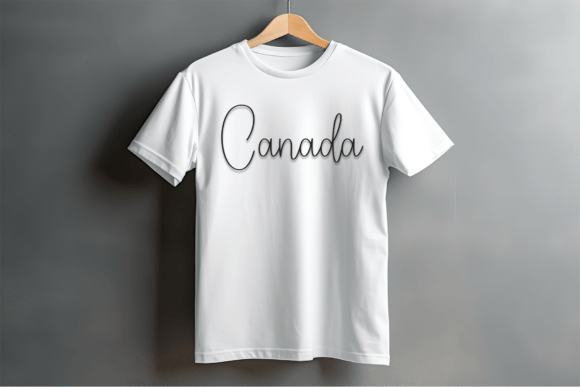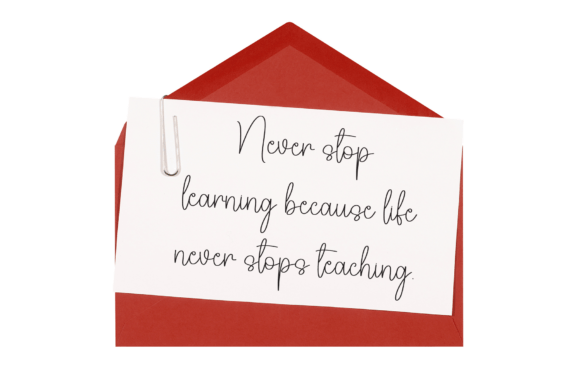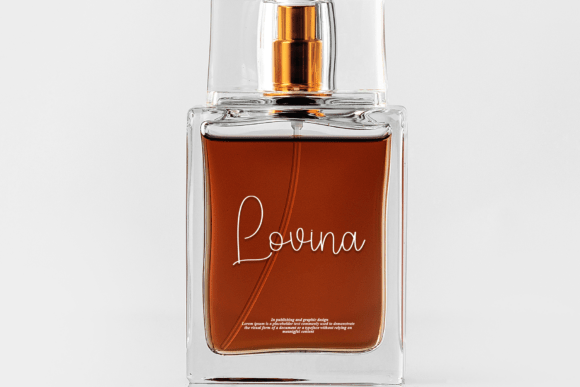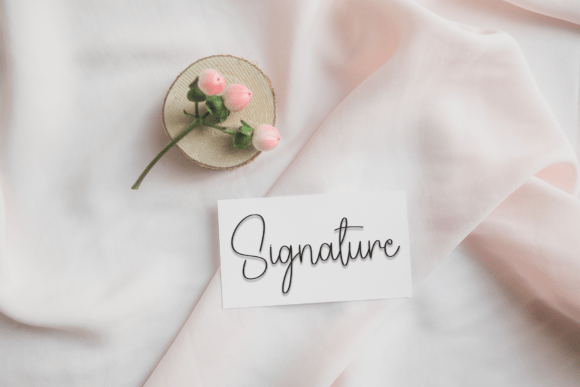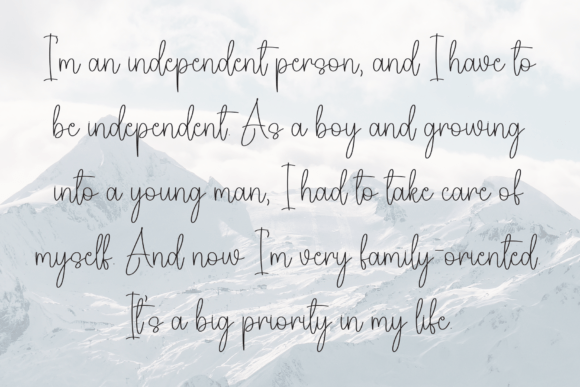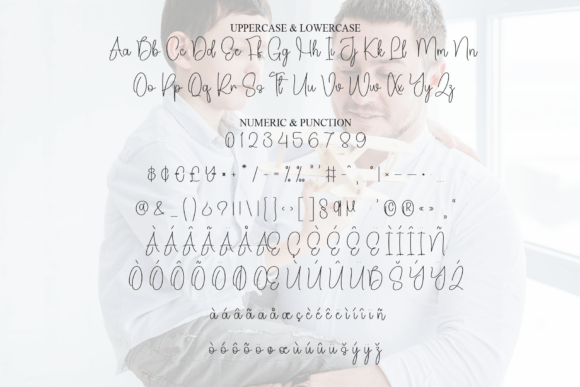
Introduction to Fathery Font
Fathery is a heartfelt modern script font with smooth, elegant curves and a handwritten touch.
Its flowing style captures warmth and connection, making it ideal for family-oriented branding, Fatherโs Day cards, personal logos, and emotional quote graphics Sophisticated yet sincere.